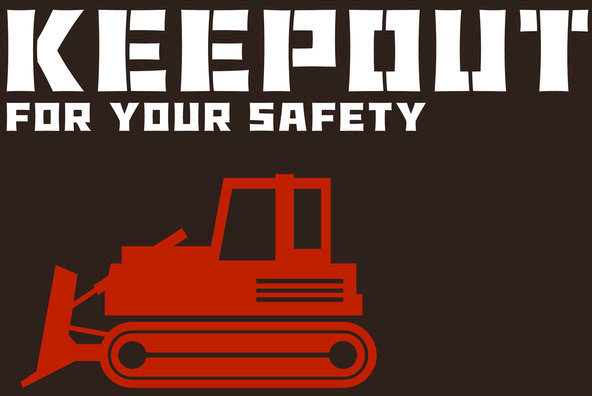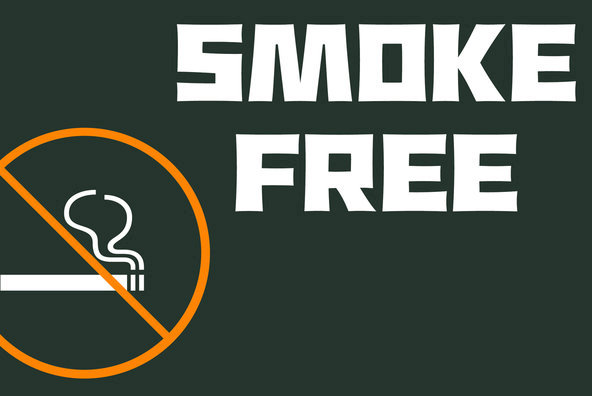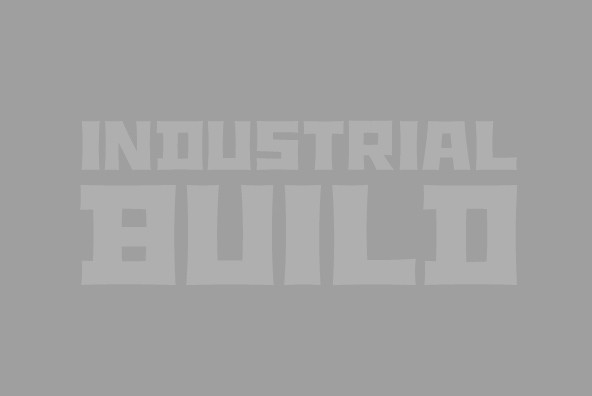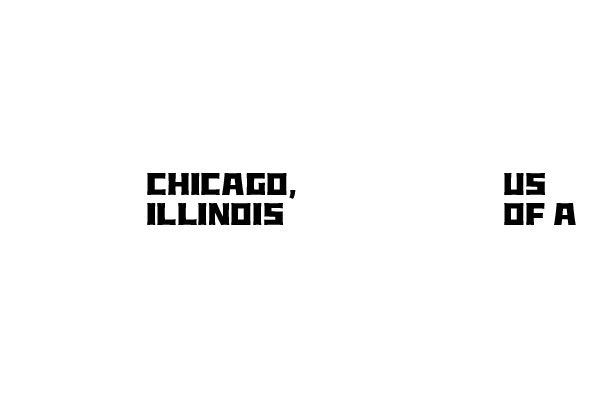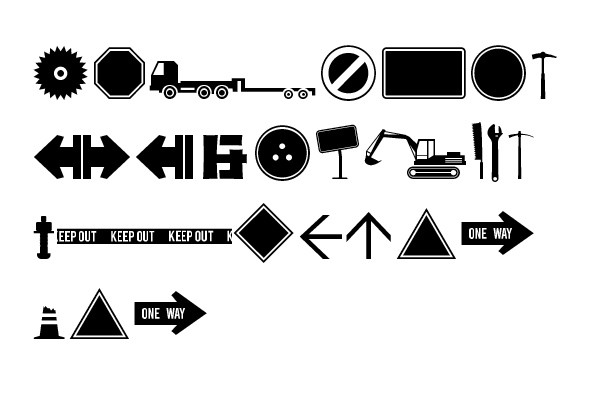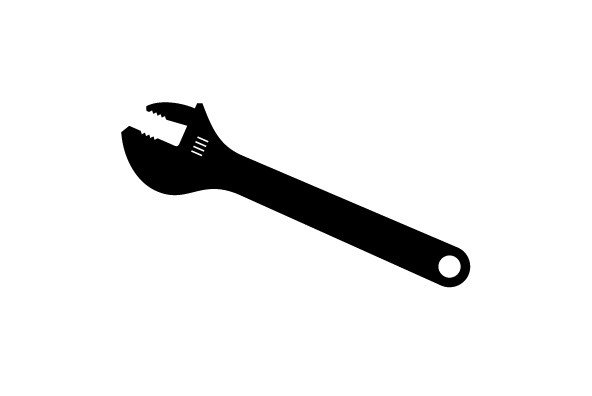
Underconstructionism
Foundry: Ryoichi Tsunekawa
Underconstructionism is inspired by stencil signage typically found on construction sites. As you can see, this heavy and rugged font is very eye-grabbing for headline and titling.